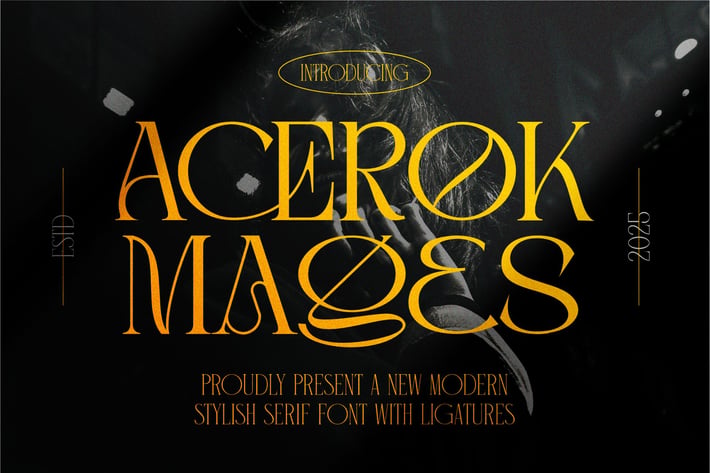
Acerok Mages || Modern Stylish Serif Font
Introducing Acerok Mages is modern serif font, trendy, bouncy and cute display font. It has a unique character with wood theme. It is perfect to be combined with invitation card designs, company logos, movie titles, movie names, business cards, book titles, brand names and various other designs.